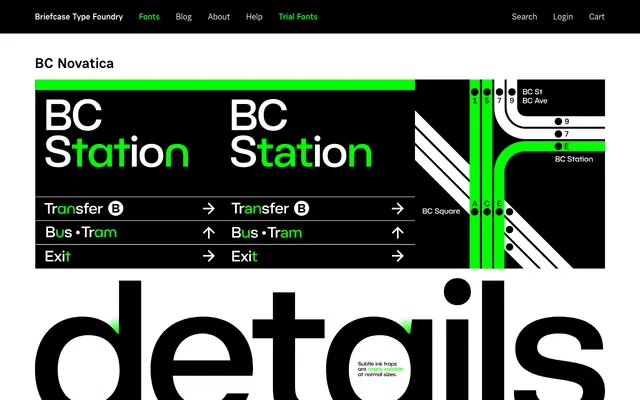
A sans-serif family from Briefcase Type Foundry, offered alongside a text-optimised companion subfamily in ten styles.
BC Novatica is a sans-serif from Briefcase Type Foundry with a related text variant, BC Novatica TXT, available in ten fonts. The pairing of a display and text subfamily suggests the family is intended to cover a range of sizes and settings. Limited page content prevents a fuller account of its stylistic particulars.
The name and foundry context suggest a European grotesque or humanist sans tradition; without further page detail the category is inferred from the BC Novatica family conventions at Briefcase Type Foundry.